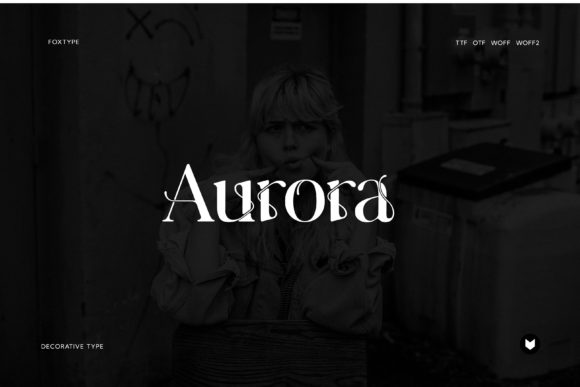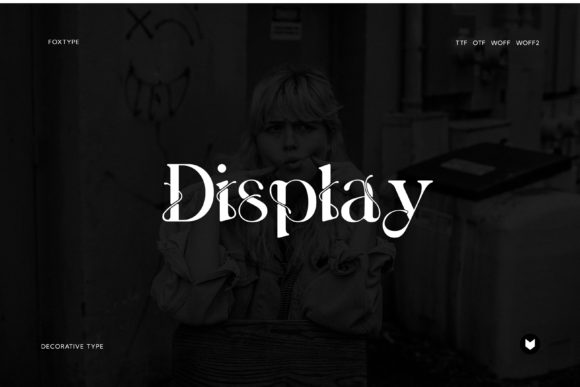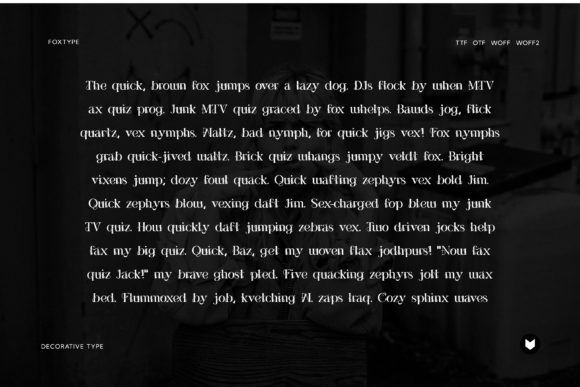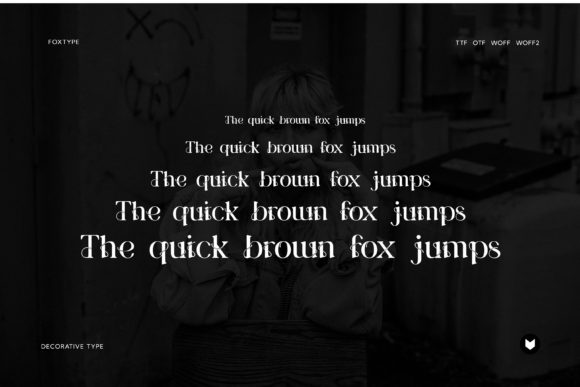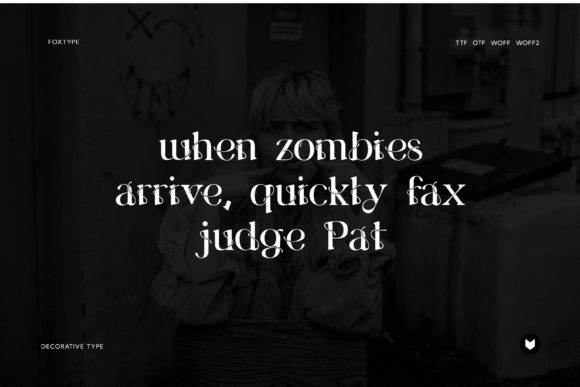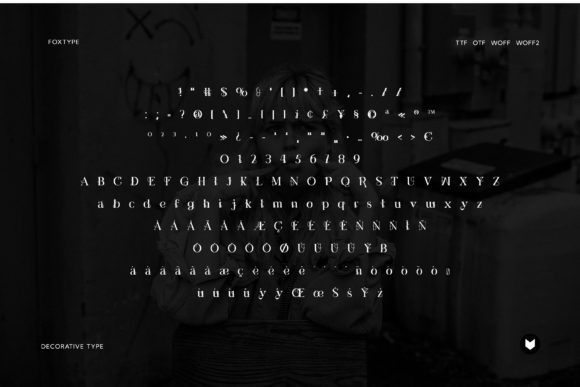
The Magical World of Aurora Font: A Designer’s Delight
Have you ever been in the middle of a design project, and suddenly, you’re stuck on finding the perfect font? I recall a particularly frustrating experience when a client requested a unique, serif font that would make their brand stand out. After hours of searching, I stumbled upon Aurora Font, and it was love at first sight! ✨ In this article, I’ll share my journey with Aurora Font, its features, and how to make the most of it in your designs.
A Personal Review of Aurora Font
• ✨ Highly detailed and distinct serif font that adds a touch of elegance to any project
• ✅ Stylish alternates and ligatures that offer endless creative possibilities
• 🌈 Excellent for branding, logos, and any project that requires a sophisticated look
While Aurora Font is an excellent choice, there are a few things to keep in mind: 🤔
• ⚠️ Some users might find the font overwhelming due to its intricate details
• ⚠️ May not be suitable for small font sizes, as details might get lost
The Story Behind Aurora Font
Aurora Font was designed by a team of typographers who aimed to create a unique, elegant serif font that would inspire designers and creatives. The font’s intricate details and stylistic alternates were inspired by traditional printing techniques and the beauty of the aurora borealis.
What is the best use case for Aurora Font? Aurora Font is perfect for branding, logos, and any project that requires a sophisticated, elegant look.
Is Aurora Font suitable for body text? While Aurora Font is beautiful, it might not be the best choice for long-form body text. Consider using it for headlines, titles, or short paragraphs.